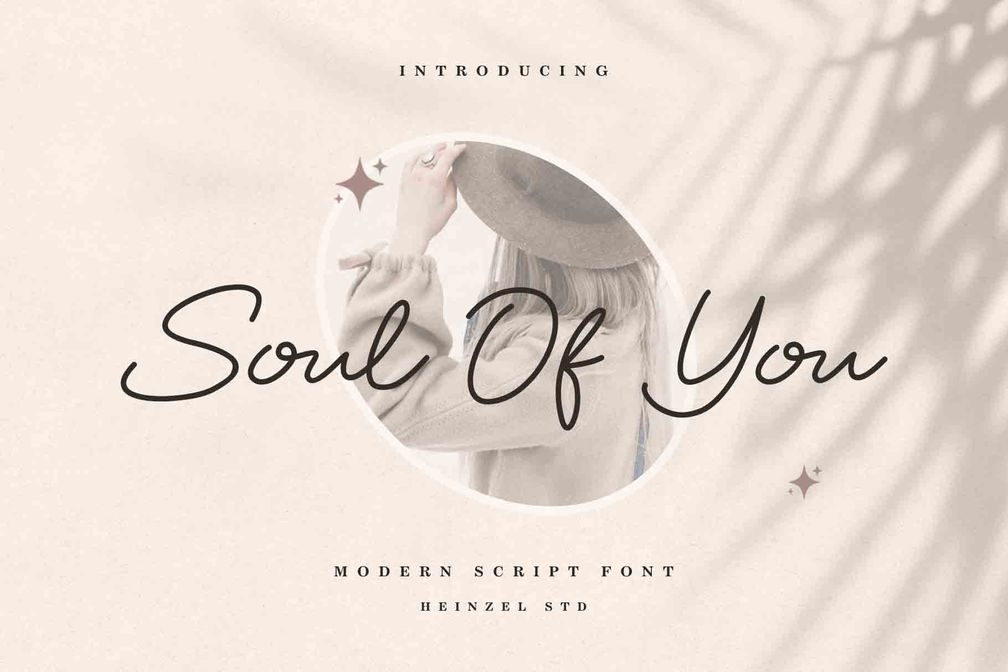
- Soul Of You Modern Script Font
Soul Of You is a modern script font, described by an elegant touch, perfect for your favorite projects. It looks stunning on wedding invitations, thank you cards, quotes, greeting cards, logos, business cards and every other design which needs a handwritten touch. Fall in love with its incredibly distinct and timeless style and use it to create spectacular designs!
Discover the perfect balance of modern and elegance with Soul of You Script Font. Let it be the soul of your designs, reflecting your unique style and vision. Explore the possibilities and embrace the modern elegance that Soul of You Font brings to your creative projects.
- Ligatures